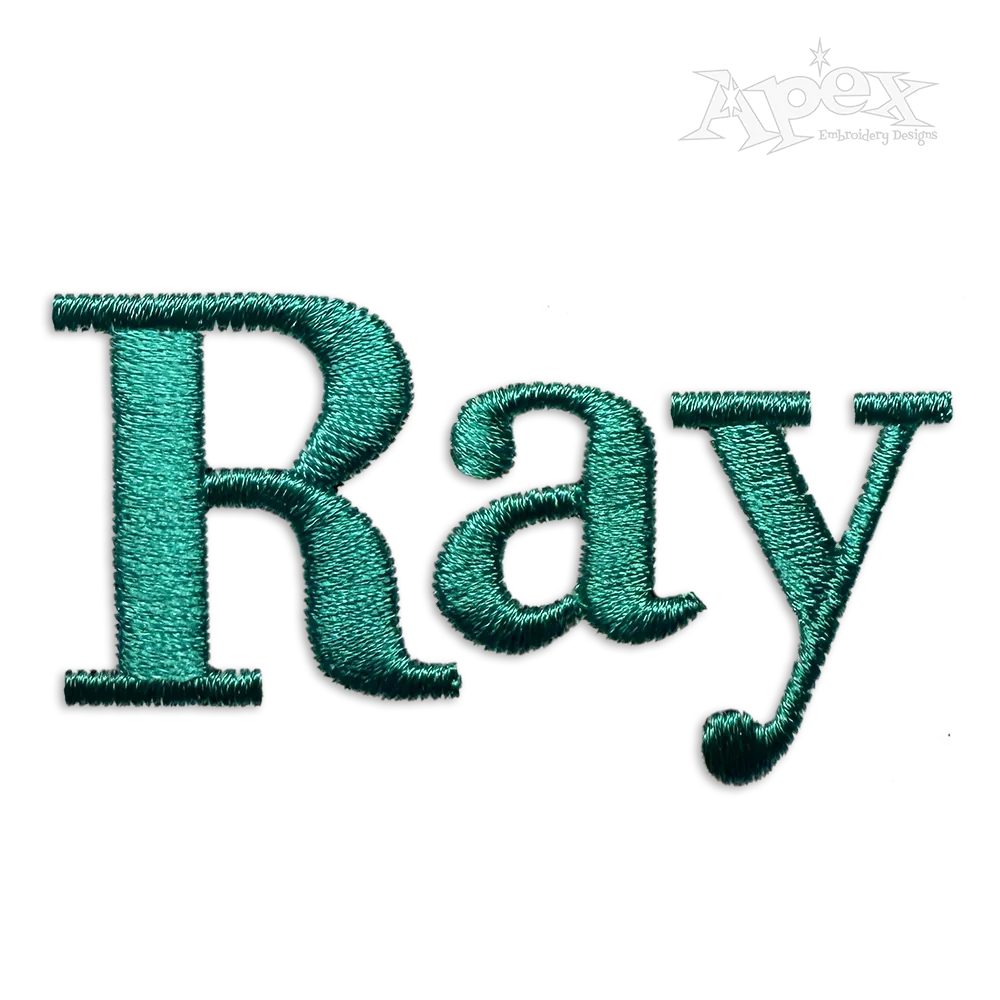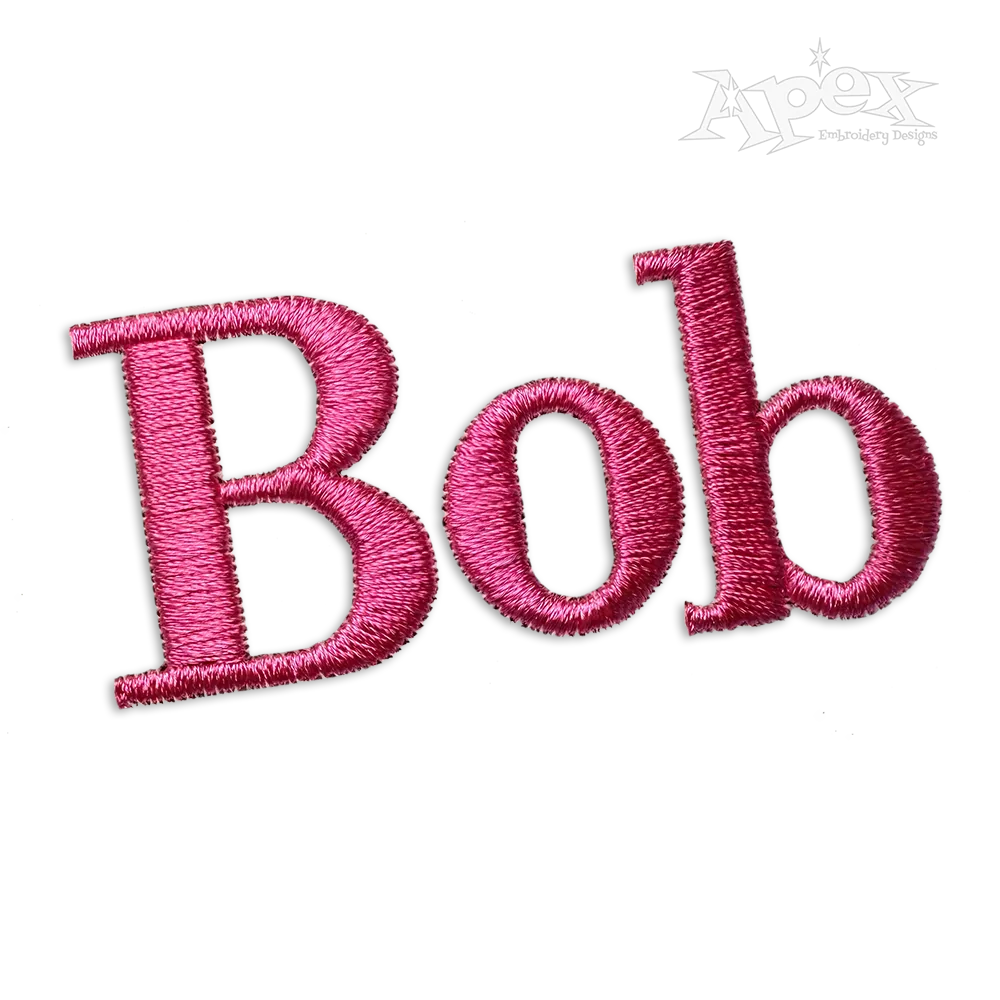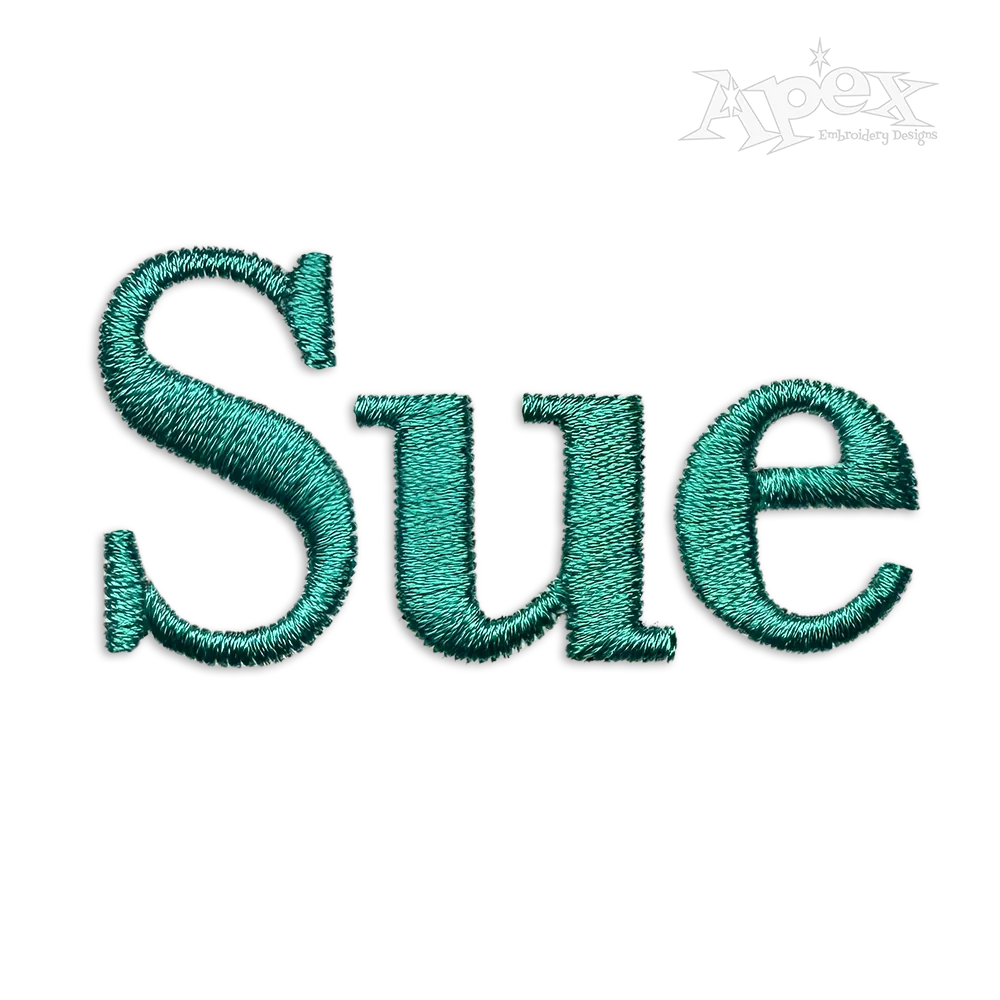
Georgia Embroidery Fonts
Rooted in classic editorial sophistication and dignified Southern grace, the Georgia embroidery font bridges traditional bookish warmth with crisp, contemporary tailoring. When digitizing this iconic alphabet, our vision was to preserve the stately proportions, generous apertures, and sturdy serifs that make the letterforms so instinctively legible, translating their distinguished presence into fluid, luminous threadwork. Every character is balanced to stitch with quiet authority and poise, bringing an air of refined, personal craftsmanship to luxury table linens, heirloom nursery accents, and tailored wardrobe staples.
Calibrated for pristine stitch density and structural balance, this versatile alphabet includes four distinct heights to accommodate everything from delicate cuff monograms to commanding focal initial displays:
- 0.5 Inch (13mm): Perfectly digitized for micro-monogramming, French cuffs, pocket plackets, and small fabric gift tags.
- 0.75 Inch (19mm): A beloved scale for personalized linen cocktail napkins, heirloom baby bibs, and handkerchief corners.
- 1.0 Inch (25mm): An essential traditional size, ideal for classic three-letter monograms on dress shirts, clutch bags, and table runners.
- 1.5 Inch (38mm): Stately and bold, engineered to anchor focal initials on canvas weekenders, decorative sham pillows, and plush resort bath towels.
Project Ideas for Georgia Embroidery Font
The literary poise and timeless cadence of the Georgia alphabet lend themselves to a wide array of custom monogramming and bespoke embroidery endeavors:
- Luxury Table Linens: Embroider crisp hemstitch dinner napkins and natural linen runners for elegant weddings, holidays, or personalized housewarming gifts.
- Bespoke Resort & Loungewear: Adorn linen pool tunics, waffle-weave robes, and piped pajama sets with sophisticated single-letter monograms.
- Heirloom Bedding: Stitch full names or classic interlaced family initials across crisp percale duvet covers, bolster pillows, and boudoir shams.
- Heavyweight Travel Totes: Add an unmistakable mark of quality to durable canvas boat bags, duffels, and everyday zip pouches.
- Personalized Gifting: Create treasured, heartfelt keepsakes with tailored monograms on bridal clutches, cashmere throws, and heirloom baby blankets.
Achieving a tailored, professional finish relies on thoughtful positioning. Consider these placement techniques for the Georgia letterforms:
- Napkin Corner Diagonal: Position your monogram on a 45-degree angle, set 1.5 to 2 inches from the bottom-right corner point for a formal table setting.
- Left Chest & Pockets: Align the center of the monogram 7 to 9 inches down from the shoulder seam and midway between the center placket and side seam, or centered squarely 0.5 inches above a shirt pocket.
- French Cuffs & Sleeve Hems: For an understated sartorial detail, center a 0.5-inch monogram on the cuff placket or parallel to the wrist seam, oriented to face outward toward the viewer.
- Pillowcases & Sheet Return Hems: Center the monogram along the decorative cuff band, ensuring the design faces outward when the sheet is turned down over the duvet.
Georgia Embroidery Font Craft & Letterform Details
What sets this digitization apart is our careful balance of structural stability and graceful stitch flow. The Georgia typeface is distinguished by its bracketed serifs and sculpted curves—features that can easily lose definition or cause thread bunching if not masterfully translated into thread. We meticulously plotted each satin stitch column with graduated turning angles, allowing the light to sweep smoothly across rounded bowls, open counters, and arched shoulders without creating harsh ridges or tension pulls.
Specialized underlay scaffolding reinforces the wide, stable bases of each serif before the lustrous top satin stitching begins. This architectural foundation prevents sinking on textured textiles like terry cloth, pique, and waffle weaves while maintaining needle-sharp clarity on fine poplins and crisp batiste. By refining pull compensation along every vertical stem and teardrop terminal, each letter sews out cleanly, retaining its noble proportions and timeless, bespoke charm on every stitch out.